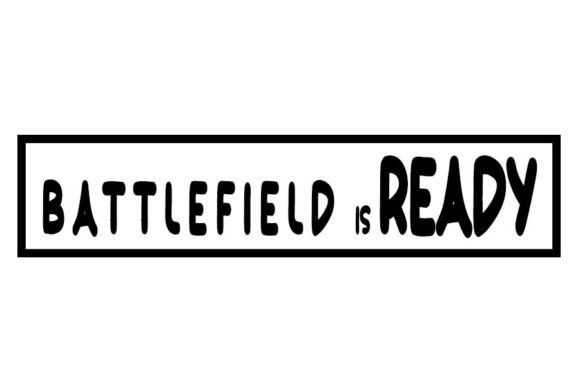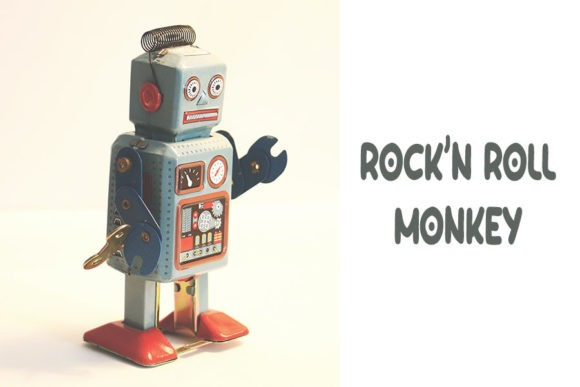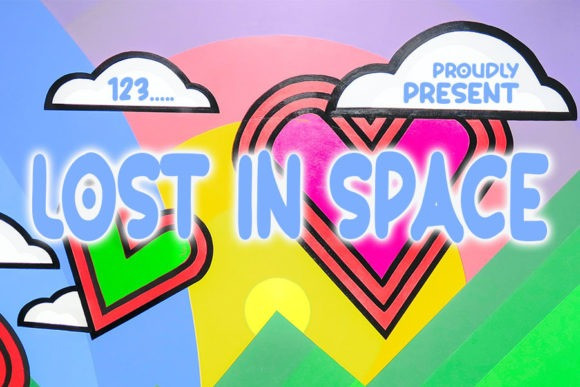
Lost In Space Font
Lost in Space Font is a simple and friendly handwritten font. Its natural and unique style makes it incredibly fitting to a large pool of designs. The only limit is your imagination!